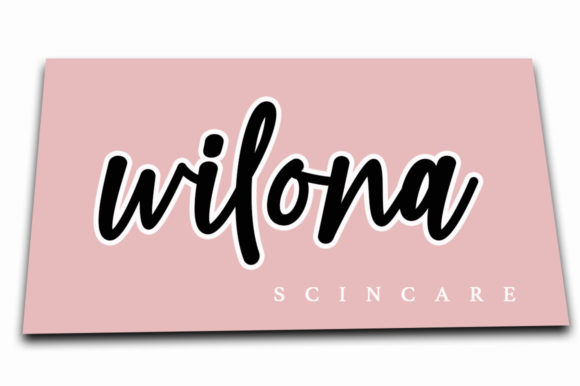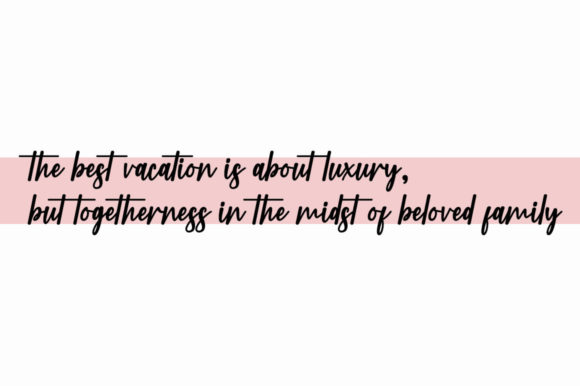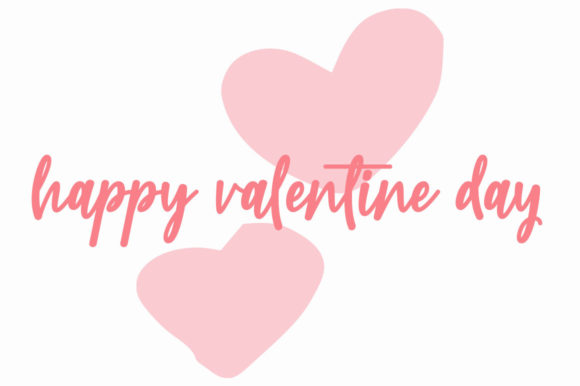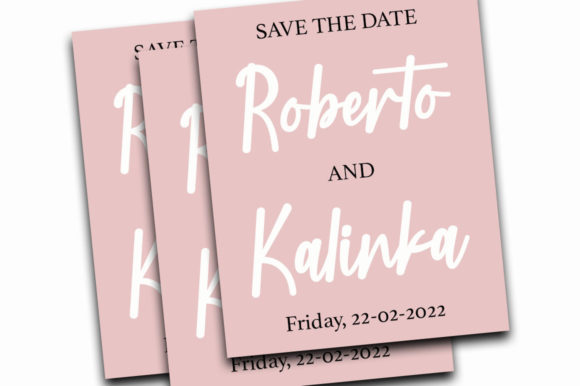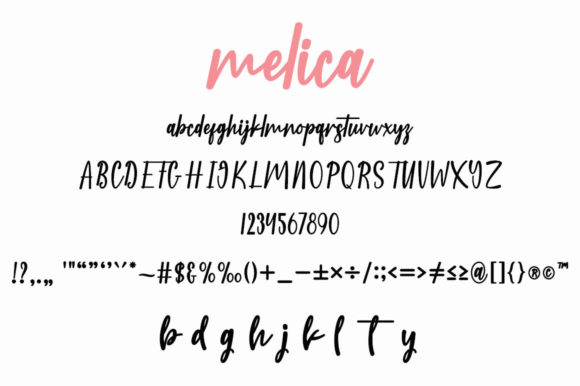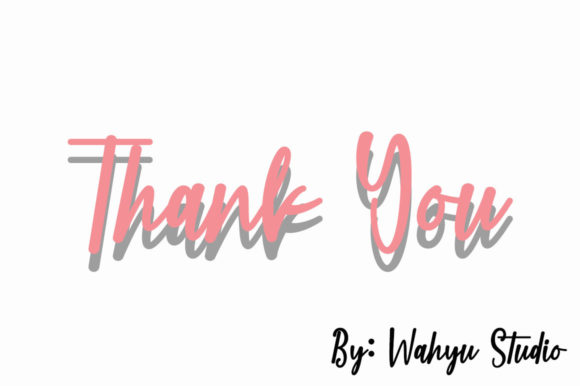
Introduction to Melica Font
Melica feels equally charming and relaxed.
It looks stunning on wedding invitations, thank you cards, quotes, greeting cards, logos, business cards and every other design which needs a handwritten touch This font is PUA encoded which means you can access all of the glyphs and swashes with ease.